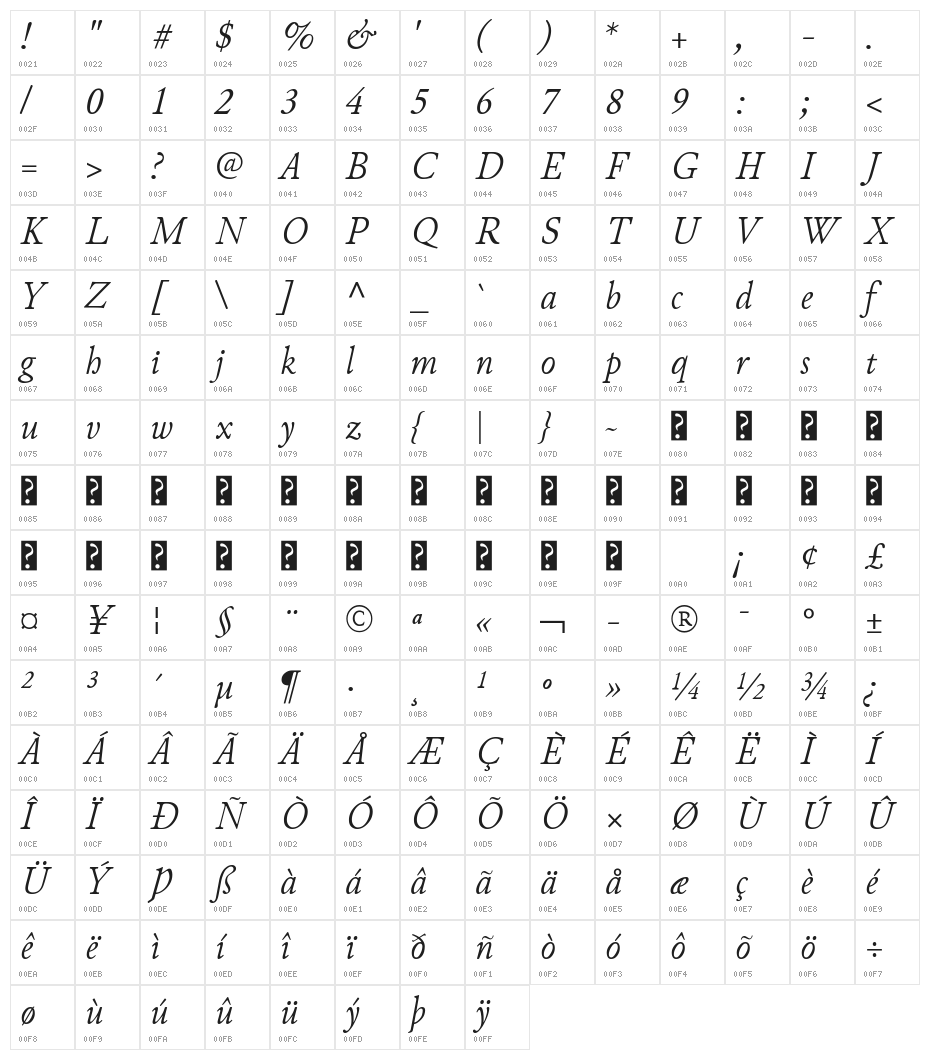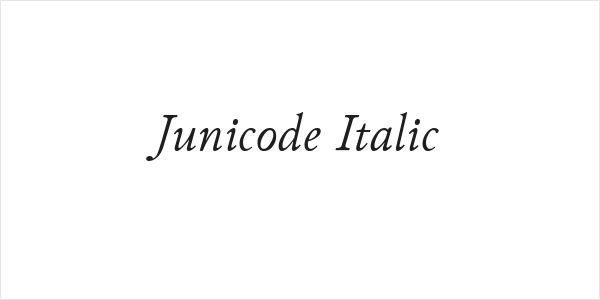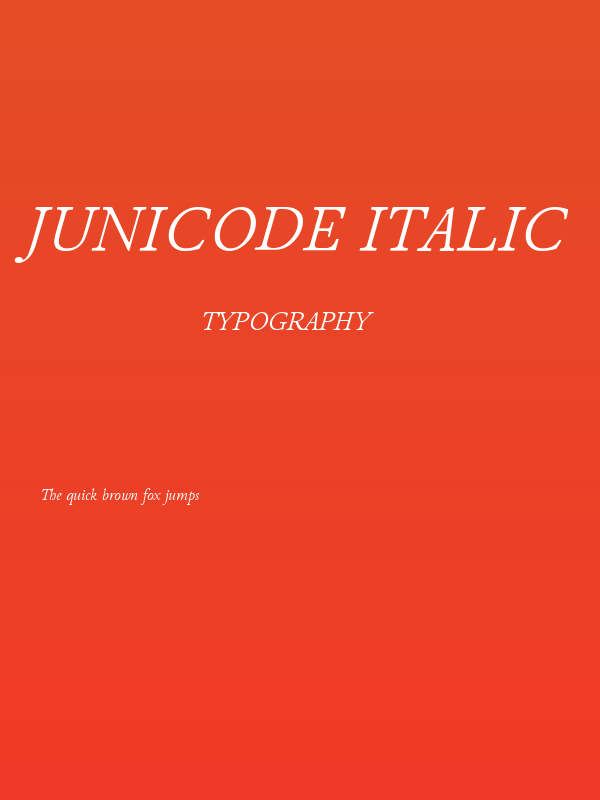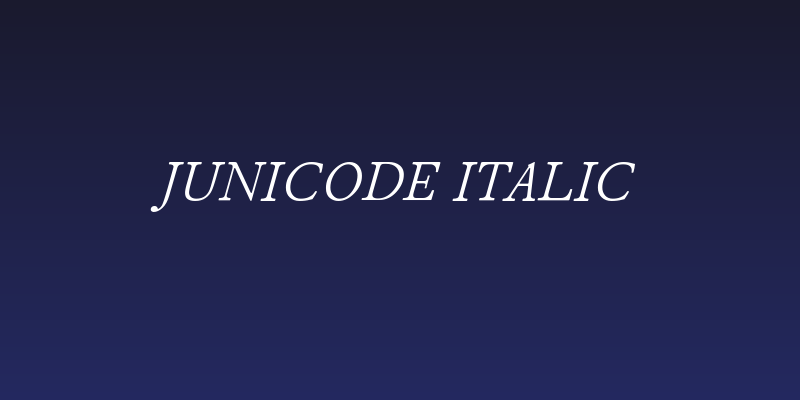
Junicode Italic Font
Junicode Italic Description
This font features a classic italic style with elegant, flowing curves and a traditional serif structure. The characters exhibit a slight slant to the right, enhancing the sense of movement and sophistication. The uppercase letters are tall and stately, while the lowercase letters maintain a consistent rhythm and balance. The numerals are proportional and harmonize well with the alphabetic characters. Special characters are thoughtfully designed, maintaining the overall aesthetic. This font is well-suited for formal documents, literature, and any project requiring a touch of elegance.
| Proposed Projects | Ideal for formal documents, classic literature, invitations, and branding that requires a touch of elegance. |